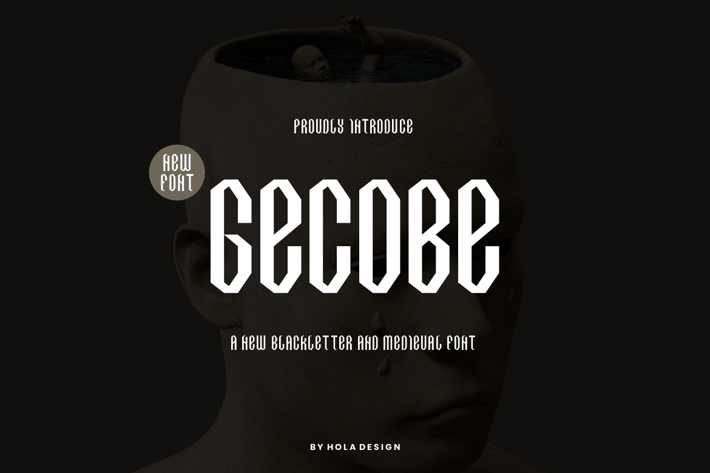
Gecobe BlackLetter Font
Gecobe BlackLetter Font Font is unique . Ready to use for your design like labeling, movie sceen, poster, movie title, gigs, album covers, logos, and much more.